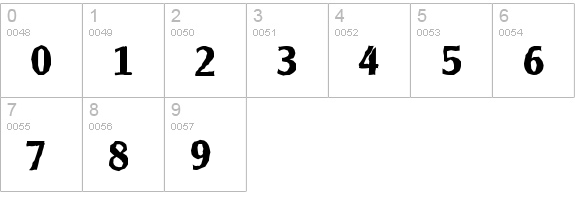
ClearGothicAntique-Bold is a strong, high-contrast variant in the ClearGothicAntique typeface family \xE2\x80\x94 well suited to headlines, attention-grabbing titles, and strong calls-to-action.
ClearGothicAntique-Bold is a striking and elegant font that exudes a classic charm with a modern twist. Its bold and clean lines make a bold statement, while its antique design adds a touch of sophistication to any project. This versatile typeface is perfect for headlines, titles, logos, and more, adding a touch of timeless beauty to your designs. The best part? ClearGothicAntique-Bold is completely free to download at FontsMarket.com. Now you can elevate your projects with this stunning font without breaking the bank. Don't miss out on this opportunity to add a touch of class to your designs with ClearGothicAntique-Bold. Download it today and let your creativity shine!